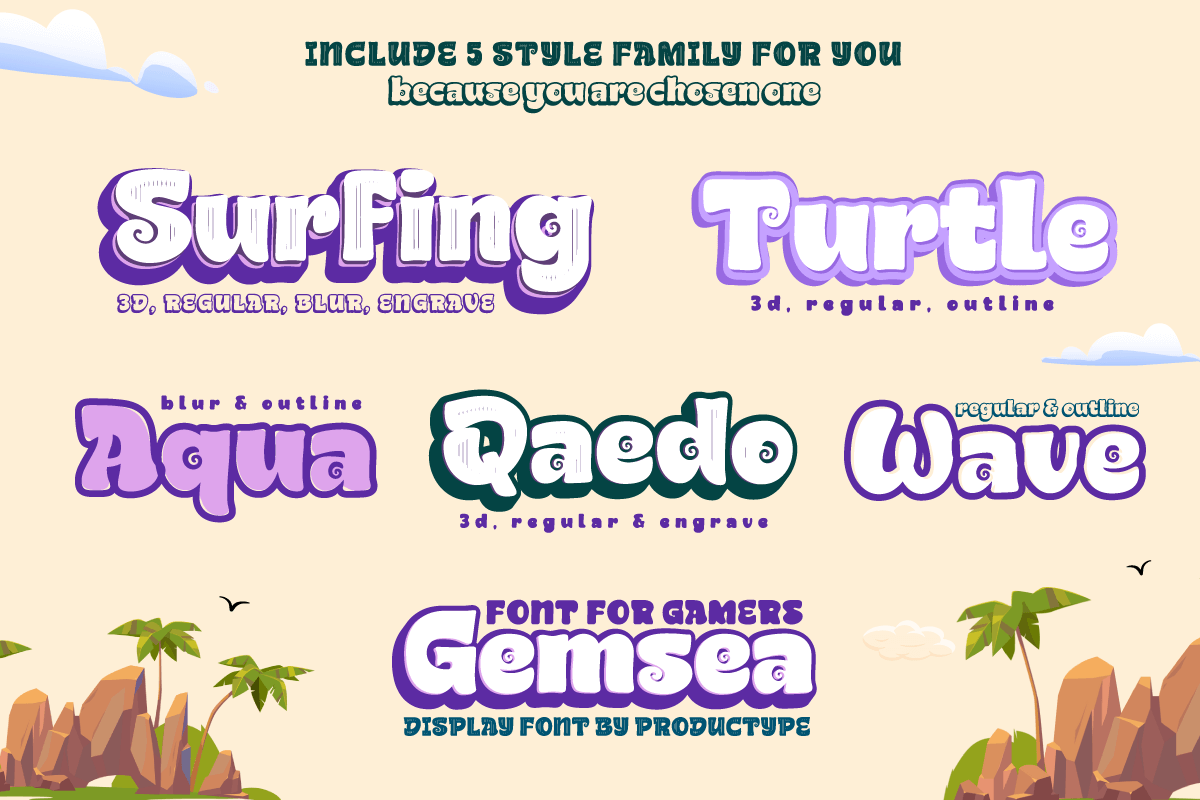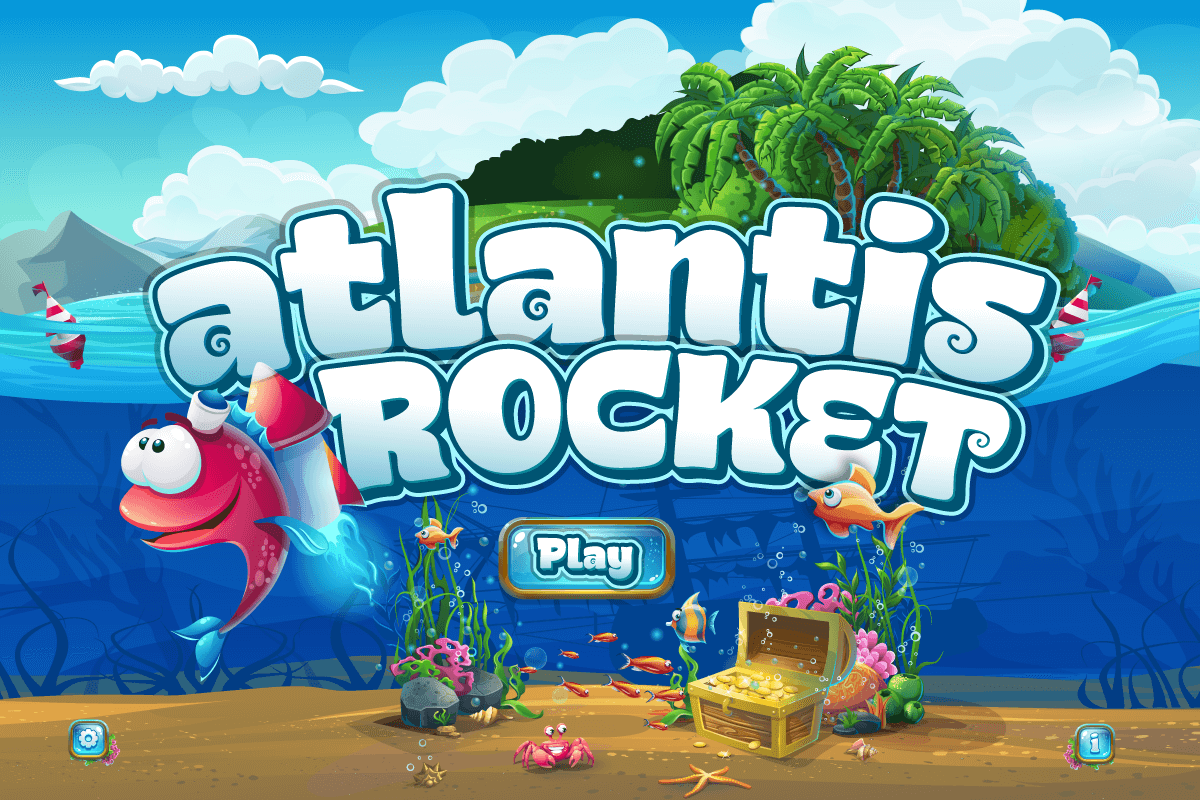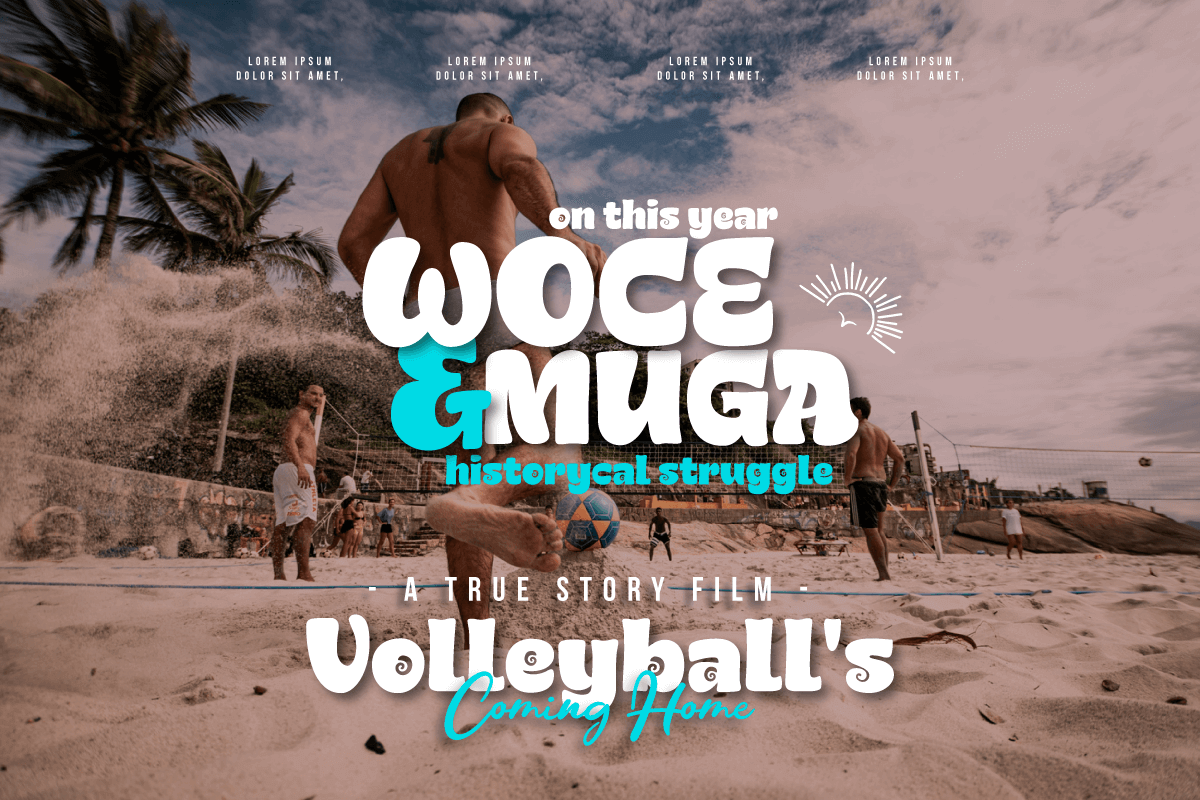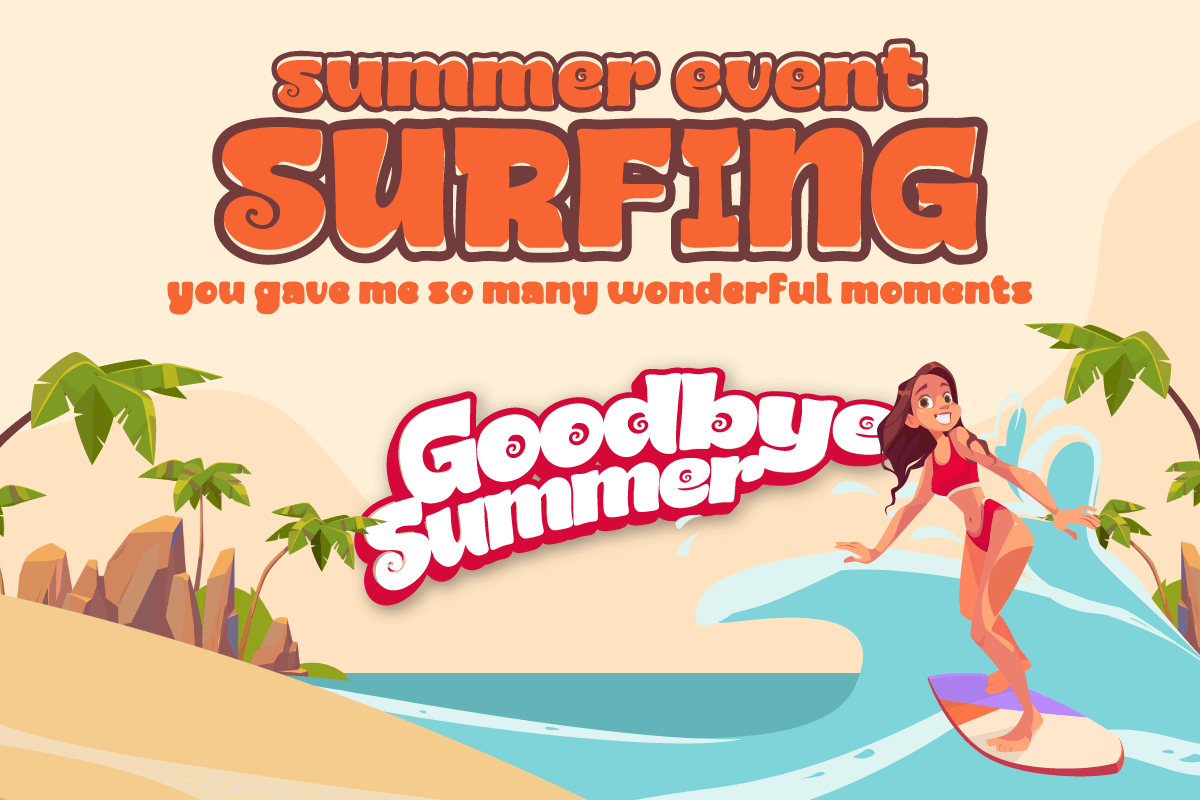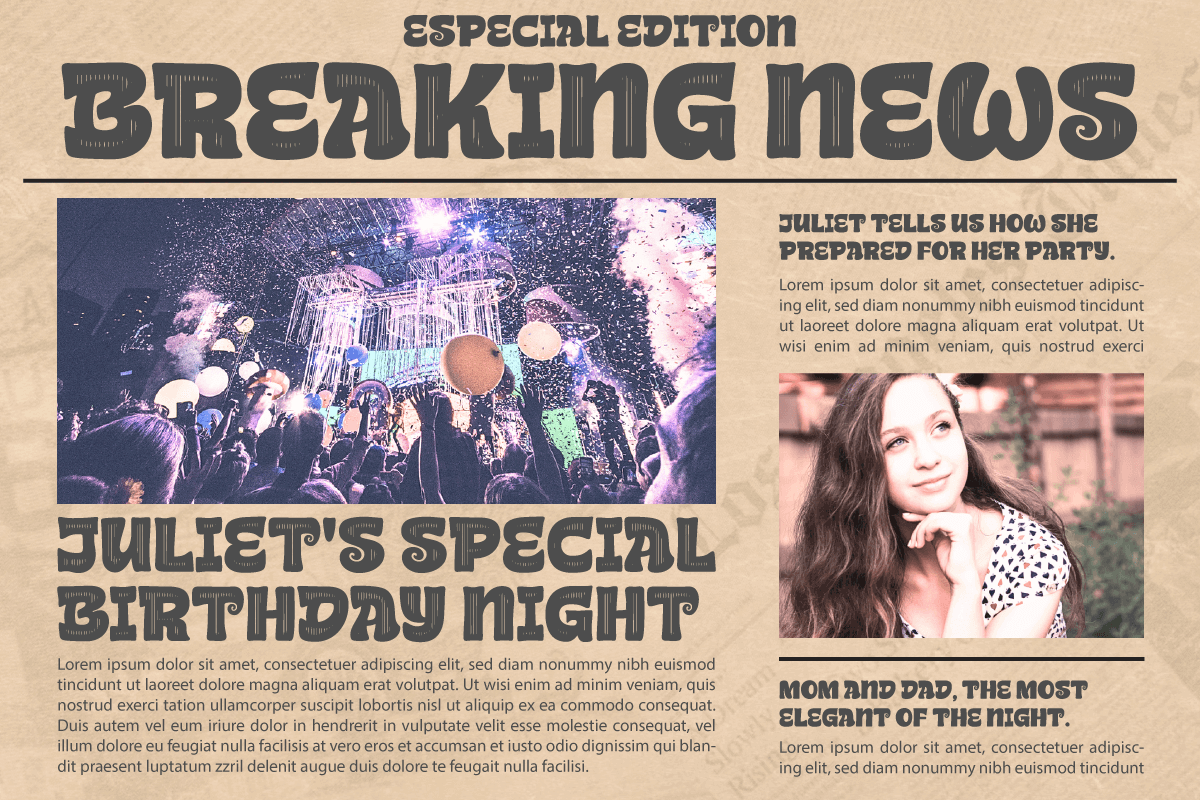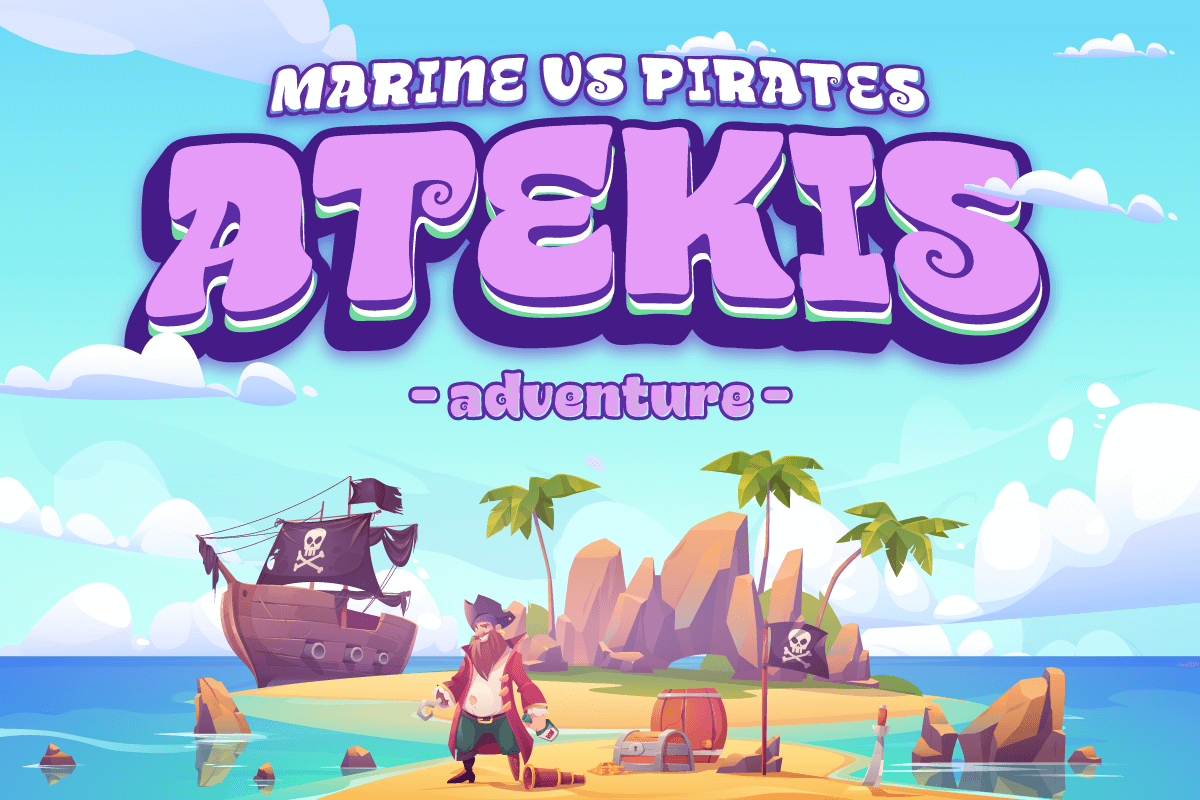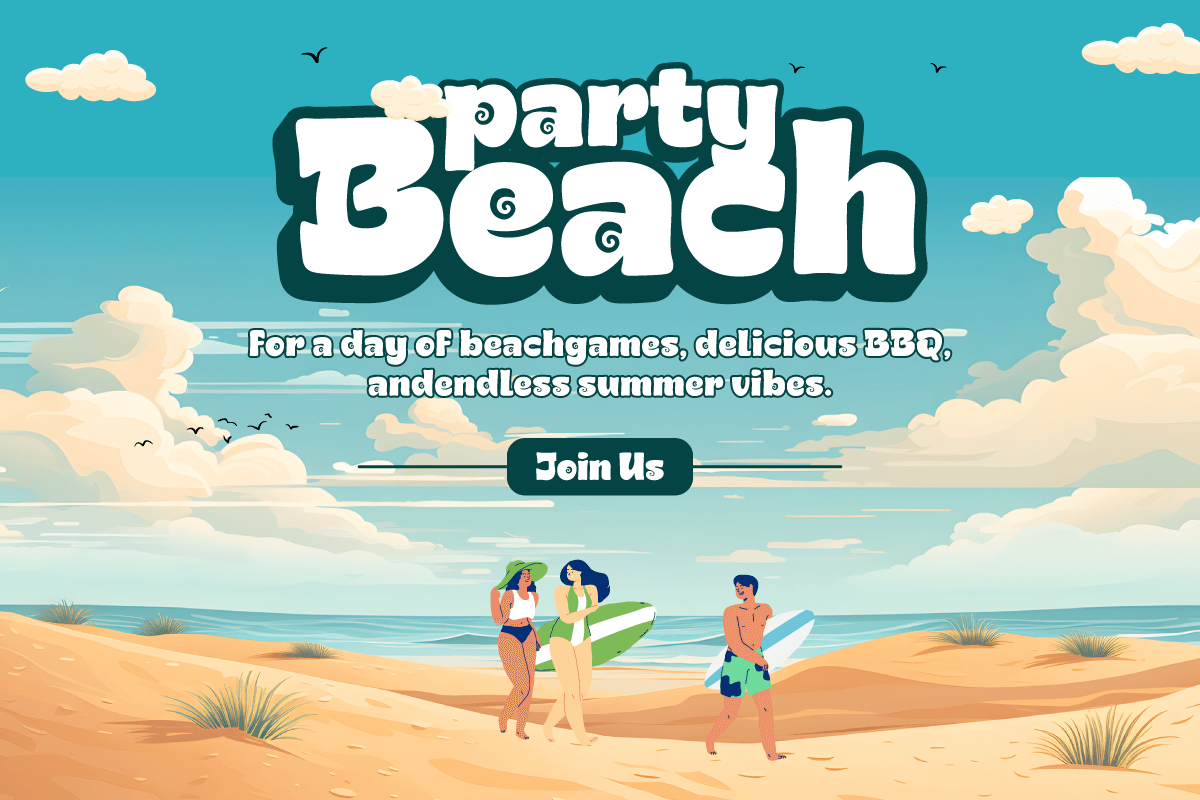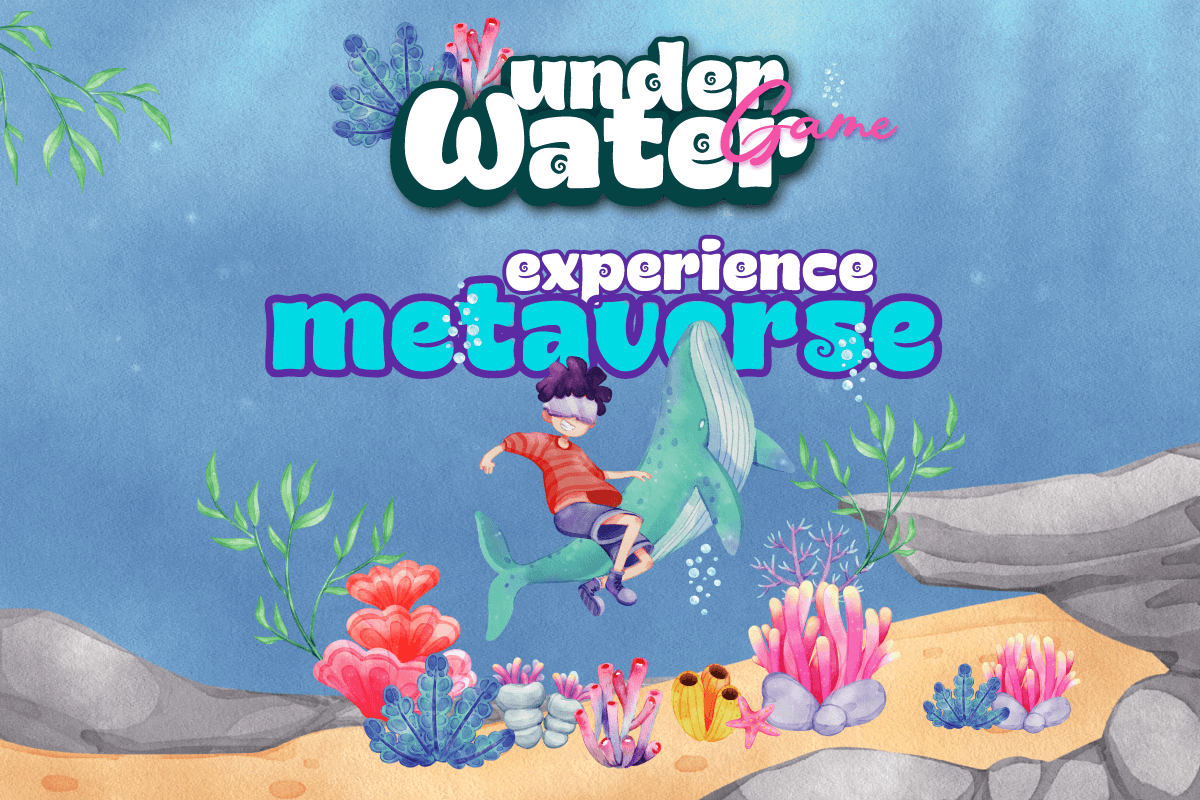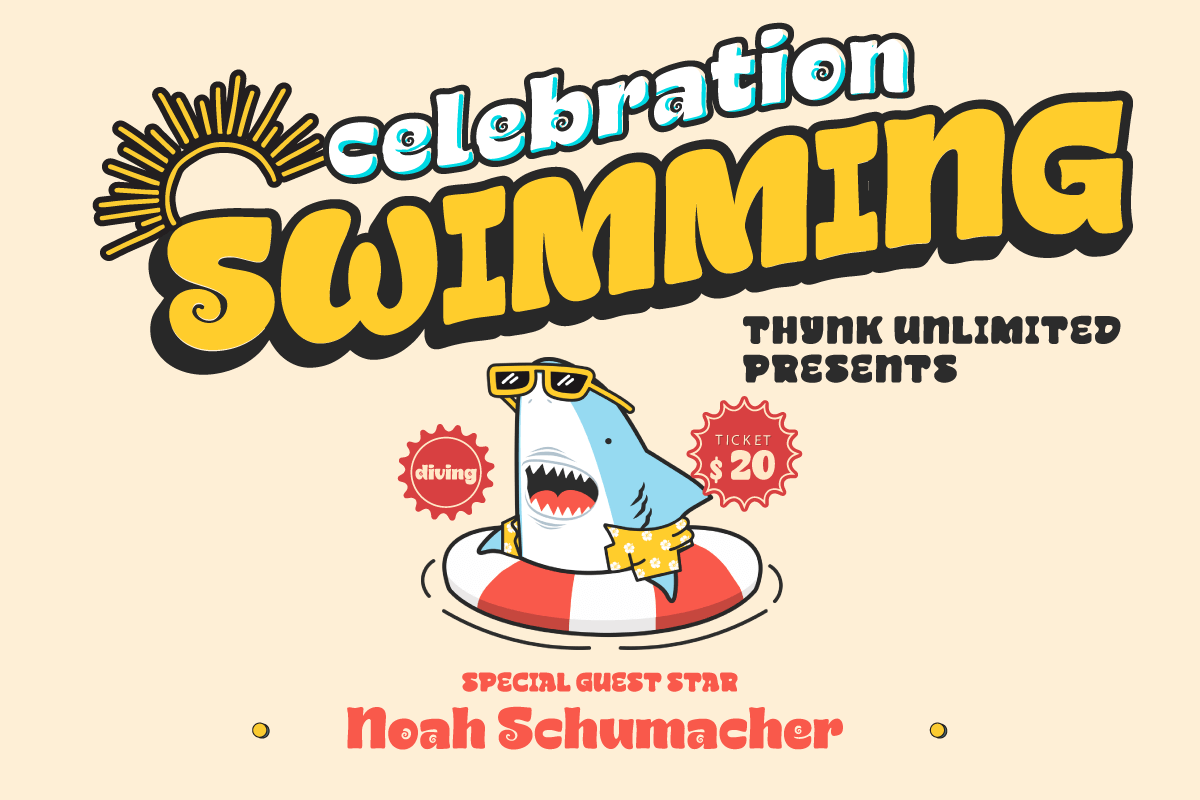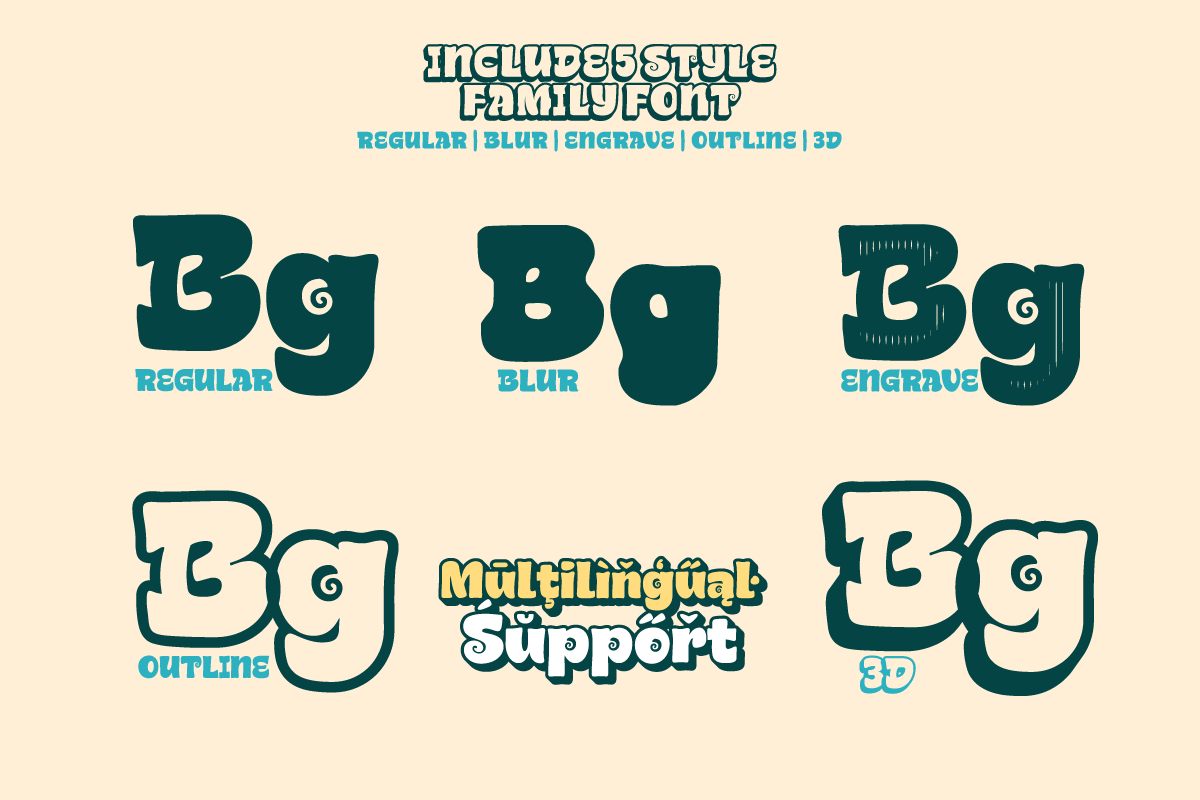
Gemsea – Display Gaming Font
REGULAR
BLUR
ENGRAVE
OUTLINE
3D
With Gemsea Fonts, you open the door to a world of limitless creativity. A display theme that celebrates the power of the ocean, bringing a strong, bold, and fun touch to any of your projects. Gemsea is the perfect solution for projects that require a unique theme. From epic films to stunning games and unforgettable streaming events, this font offers durability and appeal in various languages. Stunning Features: Five different family styles: Regular, Blur, Engrave, Outline, and 3D. This gives you the flexibility to create a variety of nuances in your designs. It supports multilingual so that you can connect with a global audience without restrictions. Gemsea creates not just projects, but unforgettable works of art. Get the Gemsea Font now and bring the magic of the ocean into your designs!